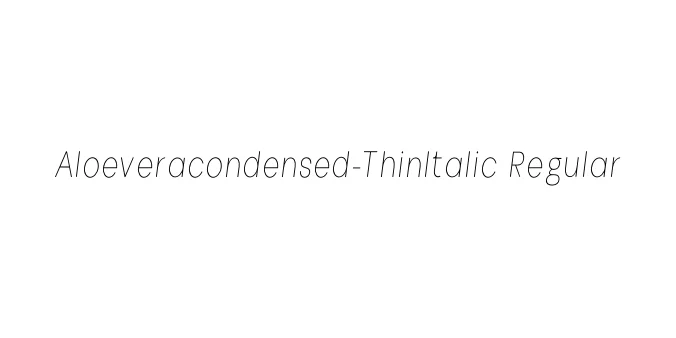
Aloeveracondensed-ThinItalic Regular
Designed by Nasir Udin
Aloeveracondensed-ThinItalic Regular is a contemporary sans-serif typeface that emphasizes a blend of organic warmth and structural precision. This specific weight belongs to the larger Aloe Vera family, designed to provide a versatile solution for designers seeking a balance between a friendly aesthetic and professional clarity. Its condensed nature allows for high-impact messaging within constrained spaces, making it a favorite for modern layouts where space is at a premium but style cannot be compromised.
The Thin Italic variation introduces a sophisticated slant and a delicate stroke width that exudes elegance and rhythmic motion. This font is particularly effective in high-end fashion branding, editorial design, and minimalist digital interfaces. Its rounded terminals soften the overall look, ensuring that even in its most slender and slanted form, the typeface remains approachable and highly readable across various screen resolutions and professional print media.
Aloeveracondensed-ThinItalic Regular Best Uses
Ideal for luxury logos and sophisticated corporate identity systems.
Excellent for stylish pull quotes and unique magazine sidebars.
Perfect for minimalist headers and clean, modern user interfaces.
Great for high-end cosmetics and premium product labeling.